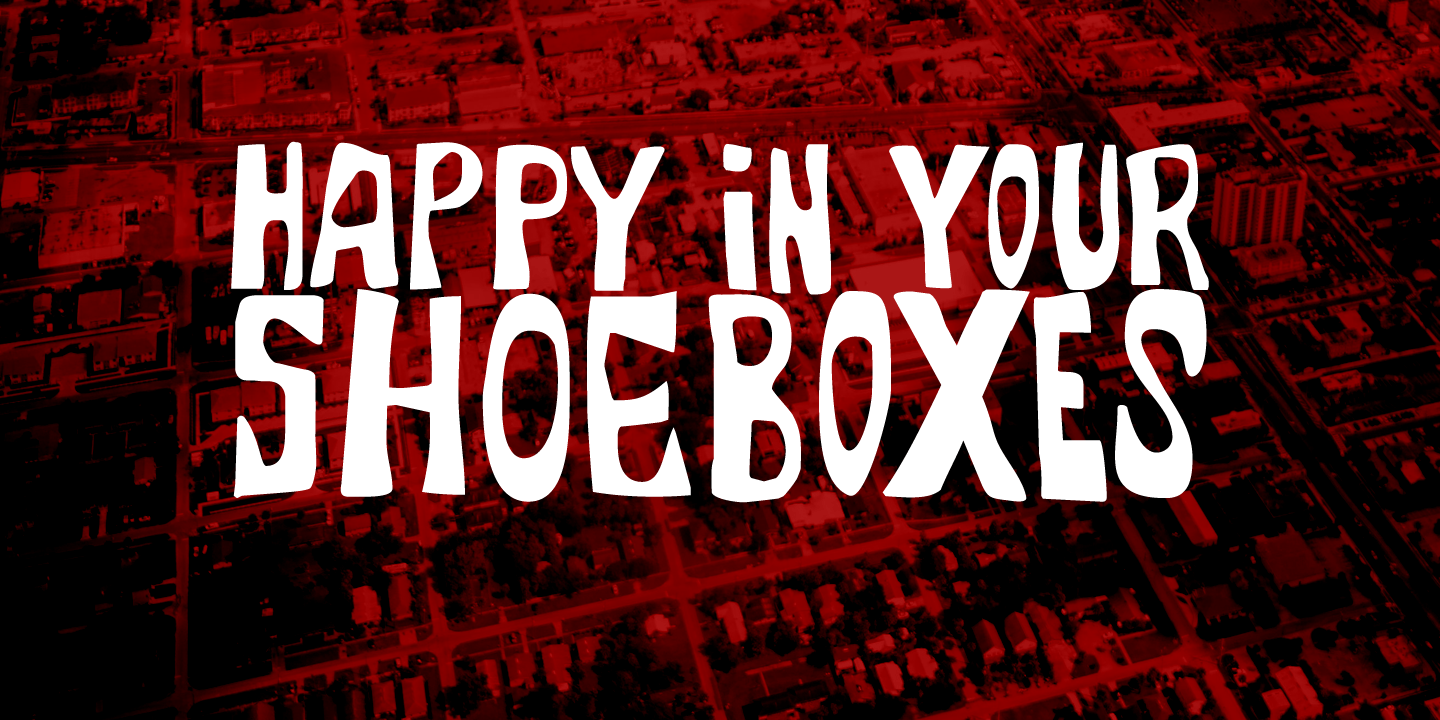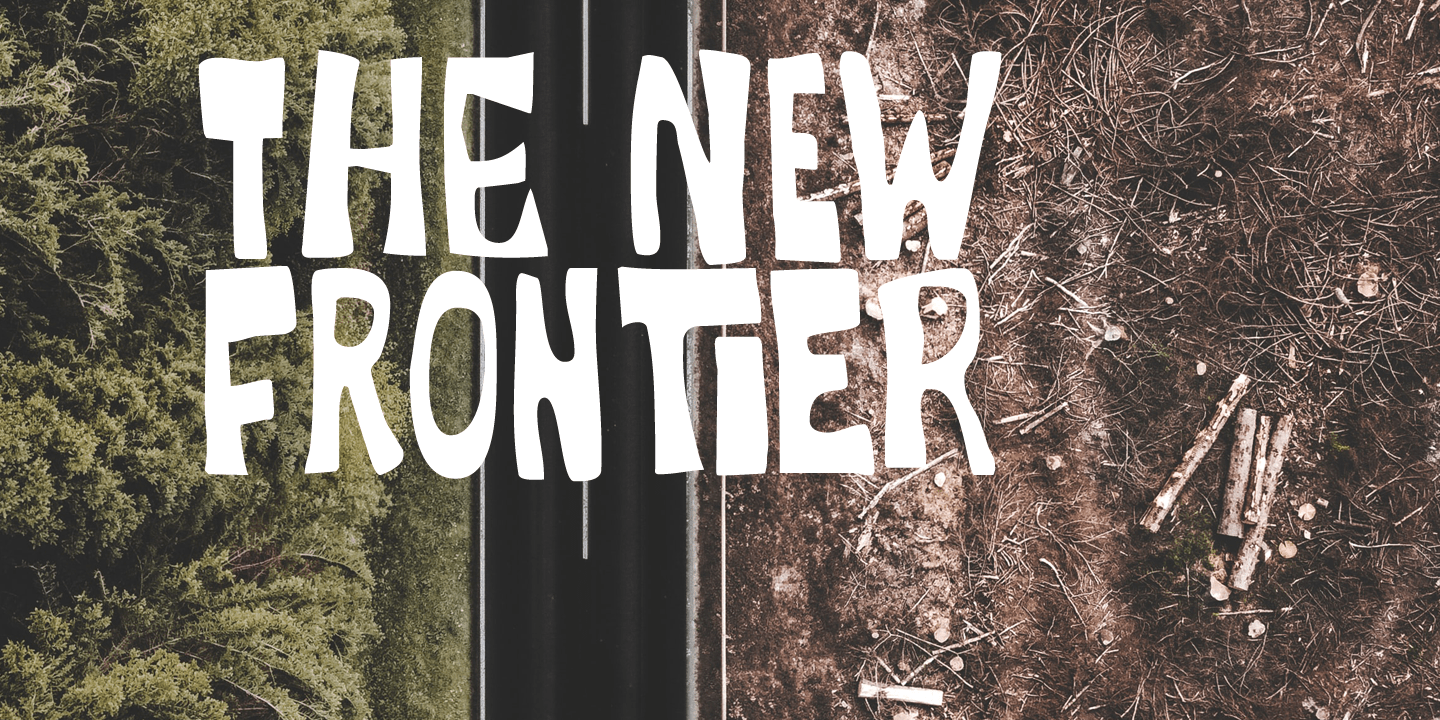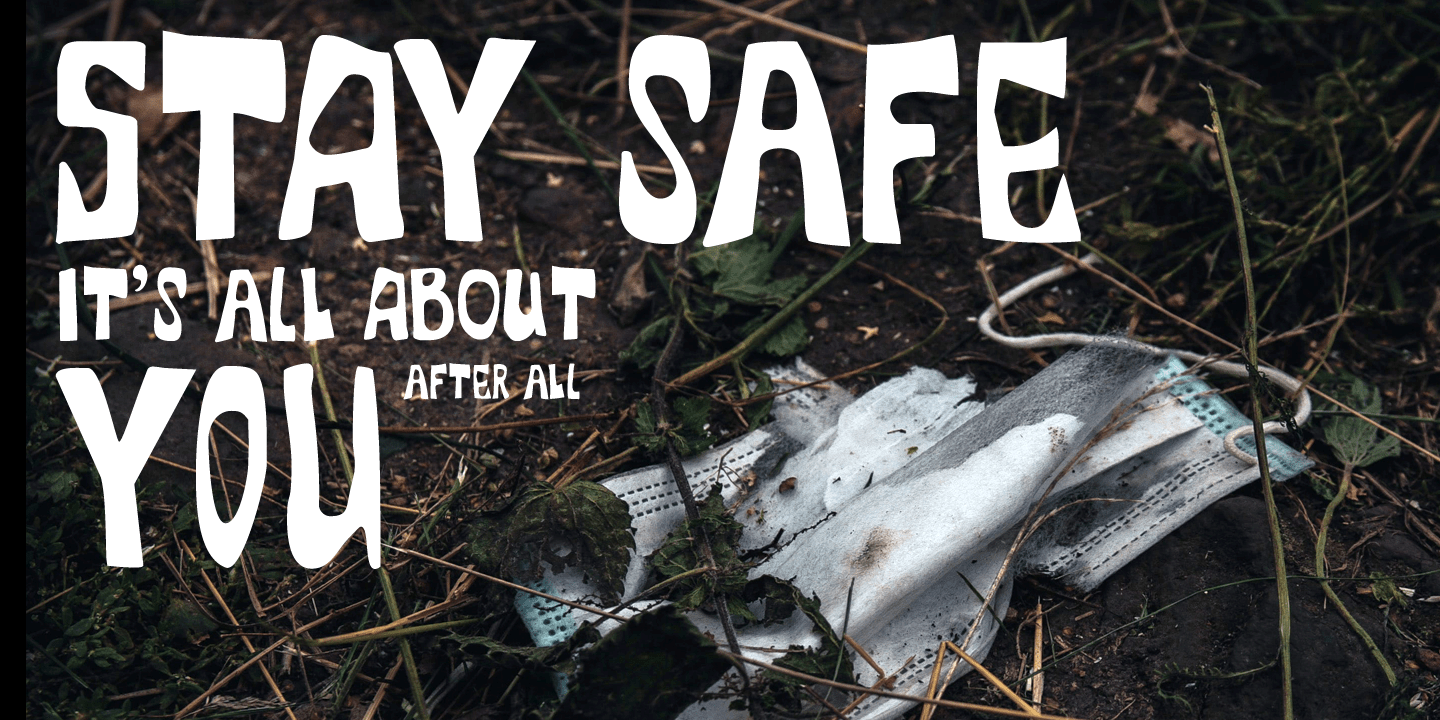
About System Overload
I sometimes think that we live in strange times: a lot of good (and bad) things seems to happen all at once. System Overload font is based on the protest posters from the seventies. You can use it for your own protest posters, your restaurant signs or…